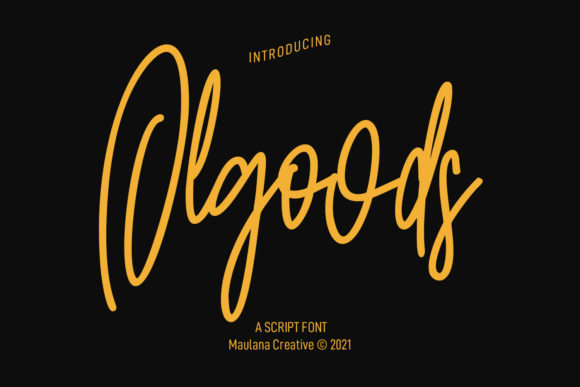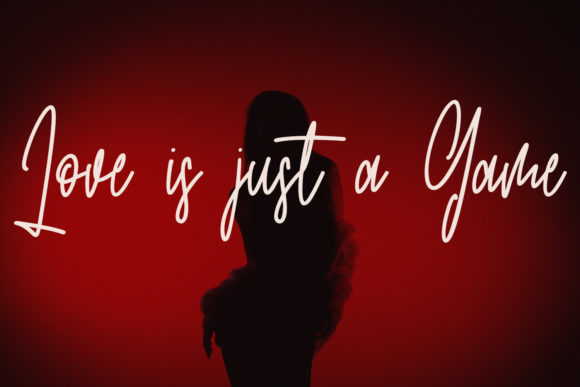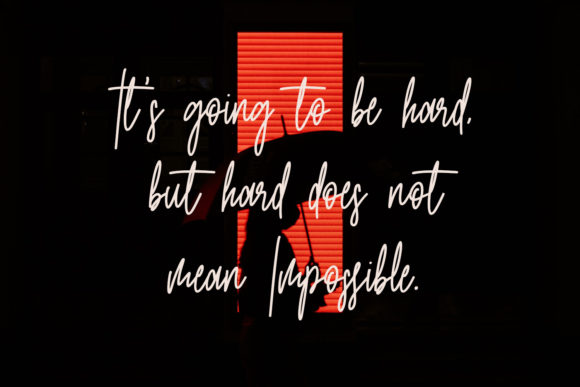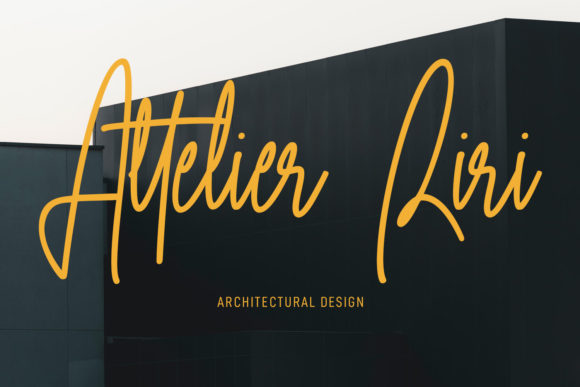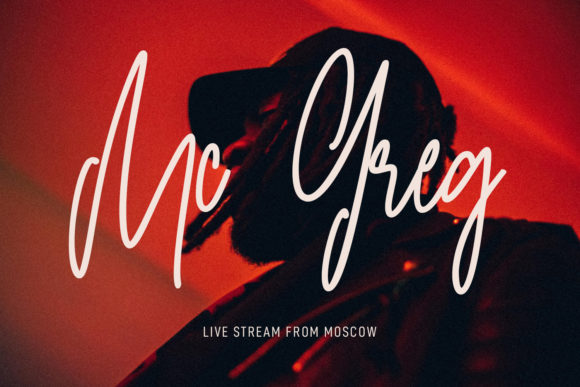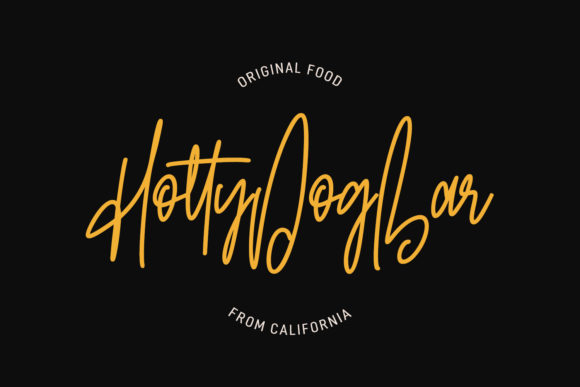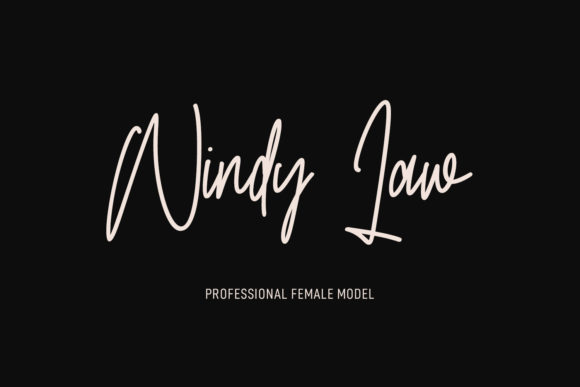
Olgoods Script Font
About Olgoods Script Font
Olgoods Script is a stylish and casual script font. It is the best choice for creating eye catching logos, branding and quotes. Every letter has a unique and beautiful touch, which will make your design come alive!